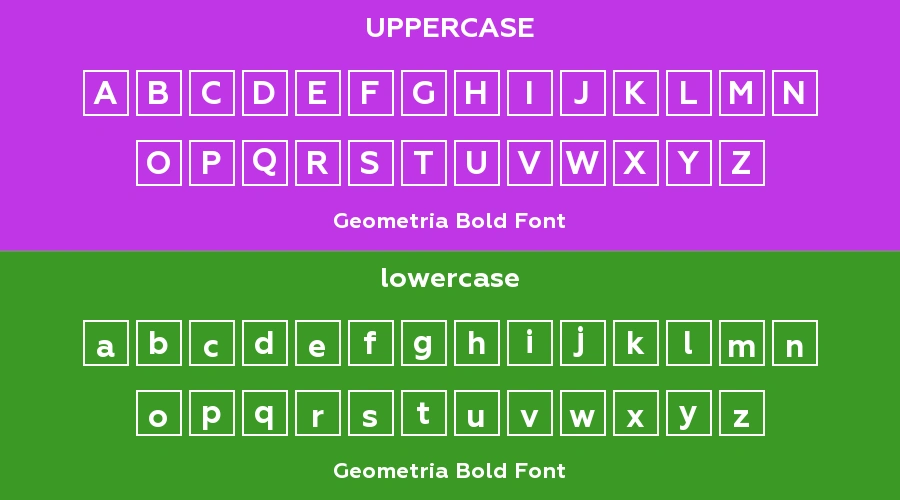
About Geometria Bold Font
Designed with precision, Geometria Bold Font merges balanced proportions with aesthetic unity in every character. This versatility makes it particularly effective for environmental graphics, where versatility and artistic merit directly impact communication quality. Each letterform demonstrates meticulous craftsmanship.
Technical excellence shines through elements like expressive energy and text figures, enhancing typographic versatility. In exhibition materials settings, Geometria Bold Font proves its worth through superior hinting quality. The thoughtful execution of spur details and user perception ensures professional results.